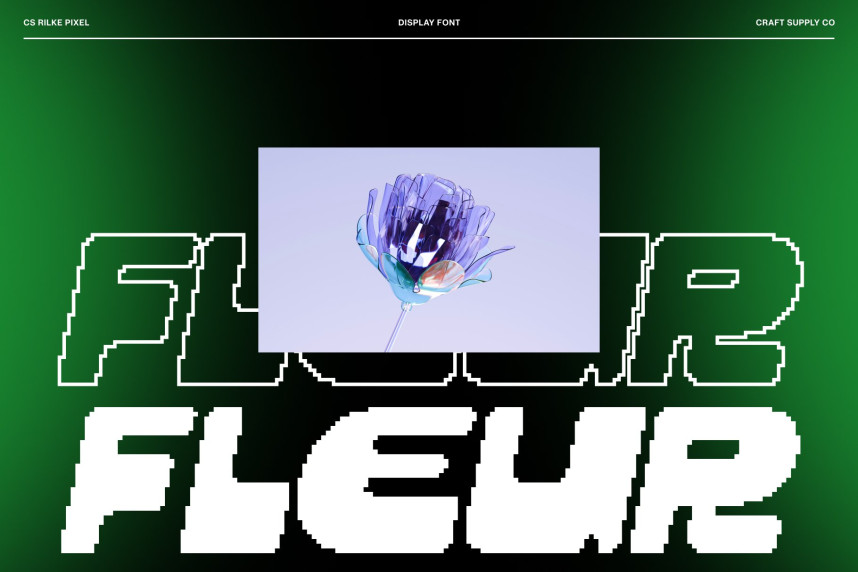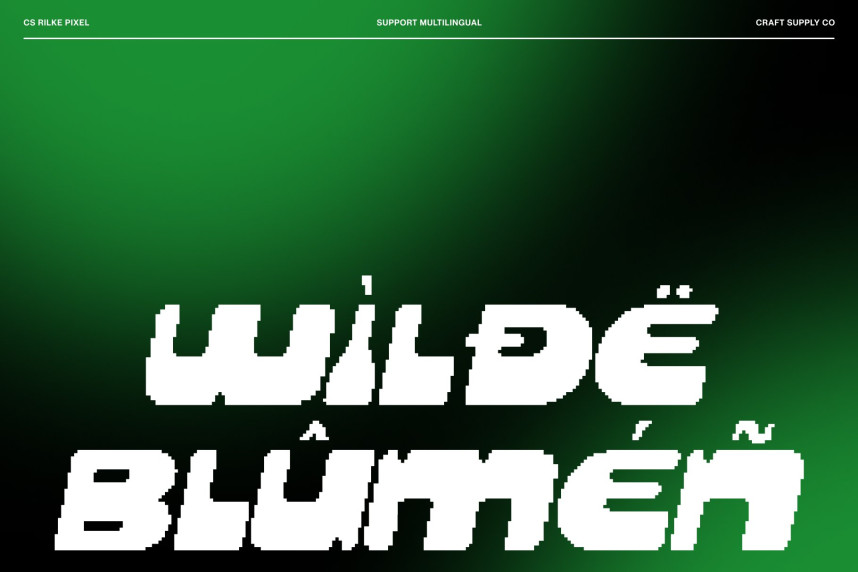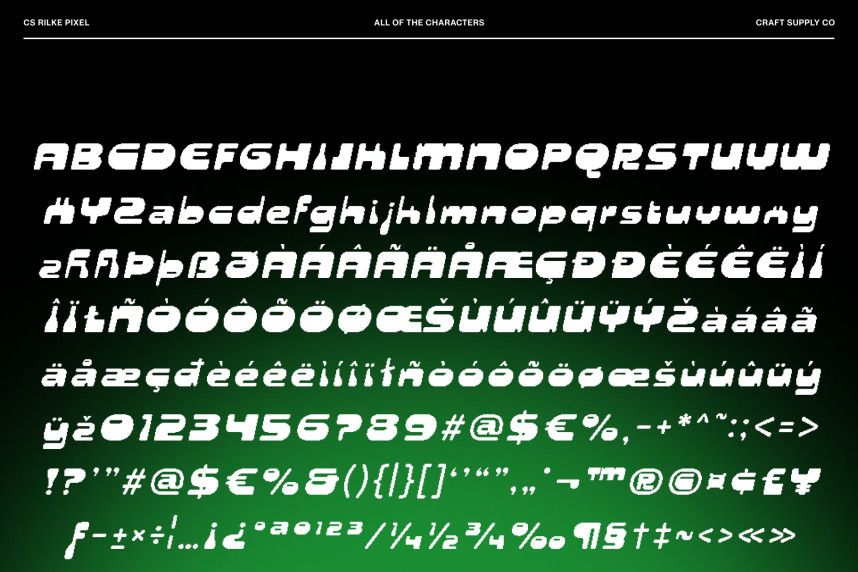
CS Rilke Pixel Font
CS Rilke Pixel Font – Futuristic Display Font with Y2K Digital Energy Futuristic Style with a Y2K Pixel Twist. This is a futuristic display font infused with bold Y2K aesthetics and digital pixel influence. Its sharp construction and structured flow evoke the spirit of early-2000s techno visuals while feeling unmistakably modern. The result is a typeface that captures nostalgia, innovation, and digital culture in one powerful form.